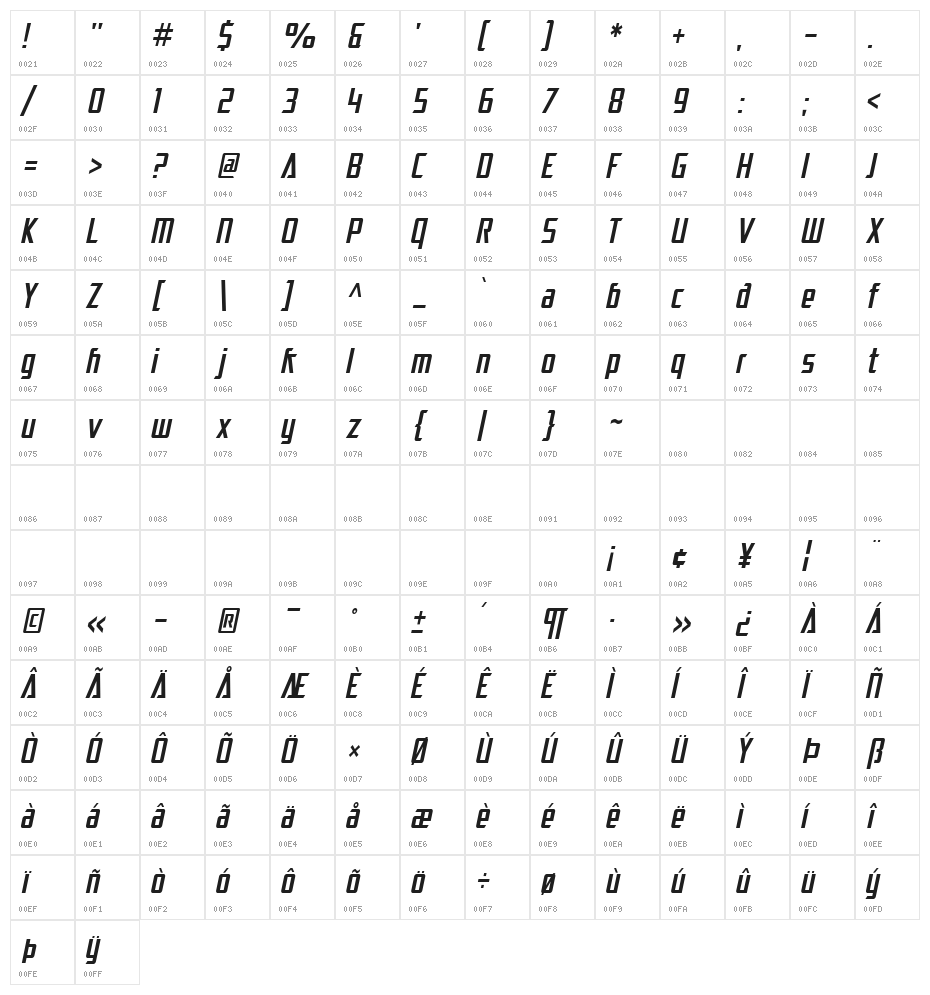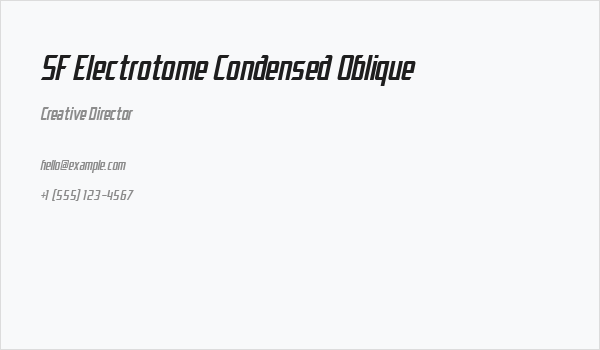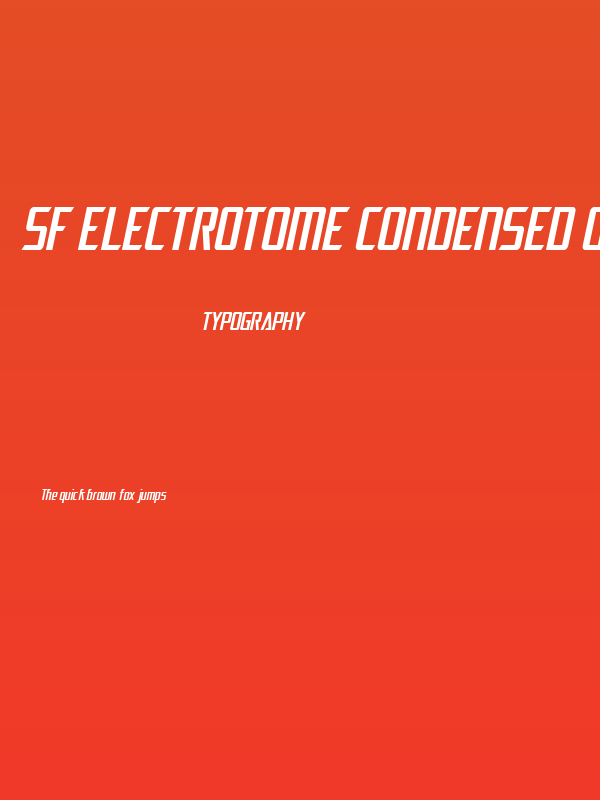
SF Electrotome Condensed Oblique Font
SF Electrotome Condensed Oblique Description
This font features a futuristic and dynamic design with a condensed and oblique style. The characters are sharply angled, giving a sense of motion and speed. The uppercase letters are bold and striking, while the lowercase letters maintain a consistent slant, enhancing the overall sleek appearance. The numerals and special characters follow the same angular theme, ensuring uniformity across all glyphs. The font's condensed nature allows for efficient use of space, making it ideal for impactful headlines and titles.
| Proposed Projects | Ideal for sci-fi themed projects, technology branding, video game titles, and dynamic posters. |